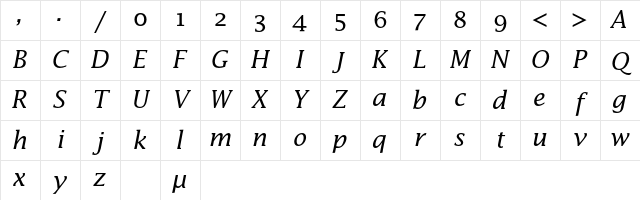
Lucida Math Std Italic
Designer: Kris Holmes, Charles Bigelow
Design Context for Lucida Math Std
Lucida Math Std is a composed and adaptable typeface that performs quietly and consistently across a wide range of design contexts. The slanted form adds forward momentum and visual energy.
Pro Tip: Use Lucida Math Std for emphasis, pull quotes, and subheadings where its slanted energy can add rhythm to the layout.